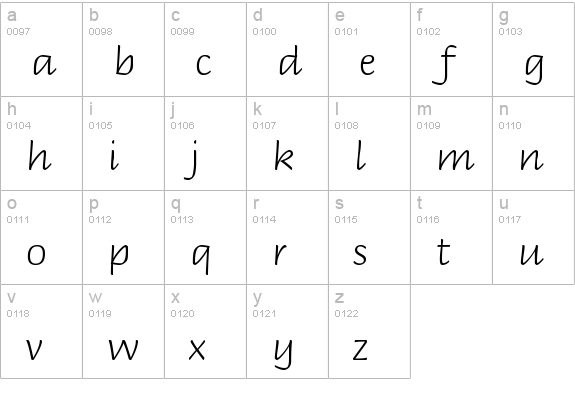
Briem Script Std Light Font Details
Briem Script Std Light is a refined, elegant variant in the Briem typeface family \xE2\x80\x94 well suited to elegant body text, refined sub-headings, and luxury branding.
Briem Script Std Light font is a delicate and elegant typeface that exudes sophistication and charm. With its slender lines and graceful curves, this font is perfect for adding a touch of elegance to any design project. Whether you're creating wedding invitations, branding materials, or elegant signage, Briem Script Std Light font will elevate your designs to the next level. The best part is that Briem Script Std Light font is available for free download at FontsMarket.com. This means you can easily access this beautiful font and use it in your projects without any cost. Don't miss out on the opportunity to enhance your designs with the timeless beauty of Briem Script Std Light font. Download it today and elevate your design game!